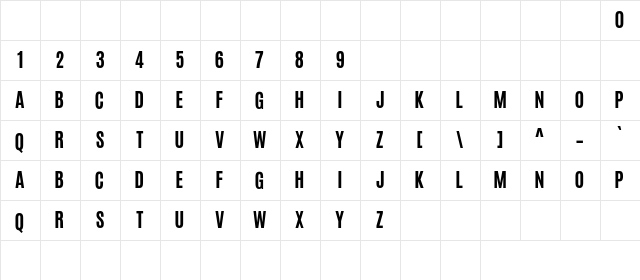
Ioannina Medium
| Foundry | Shanaya Creative |
| Designer | Naya |
Design Context for Ioannina Typeface
Ioannina offers clean, dependable letterforms without strong stylistic allegiance, making it a practical choice for designers who need flexibility.
Pro Tip: Pair Ioannina with a font of contrasting weight or personality to build a more expressive typographic hierarchy.